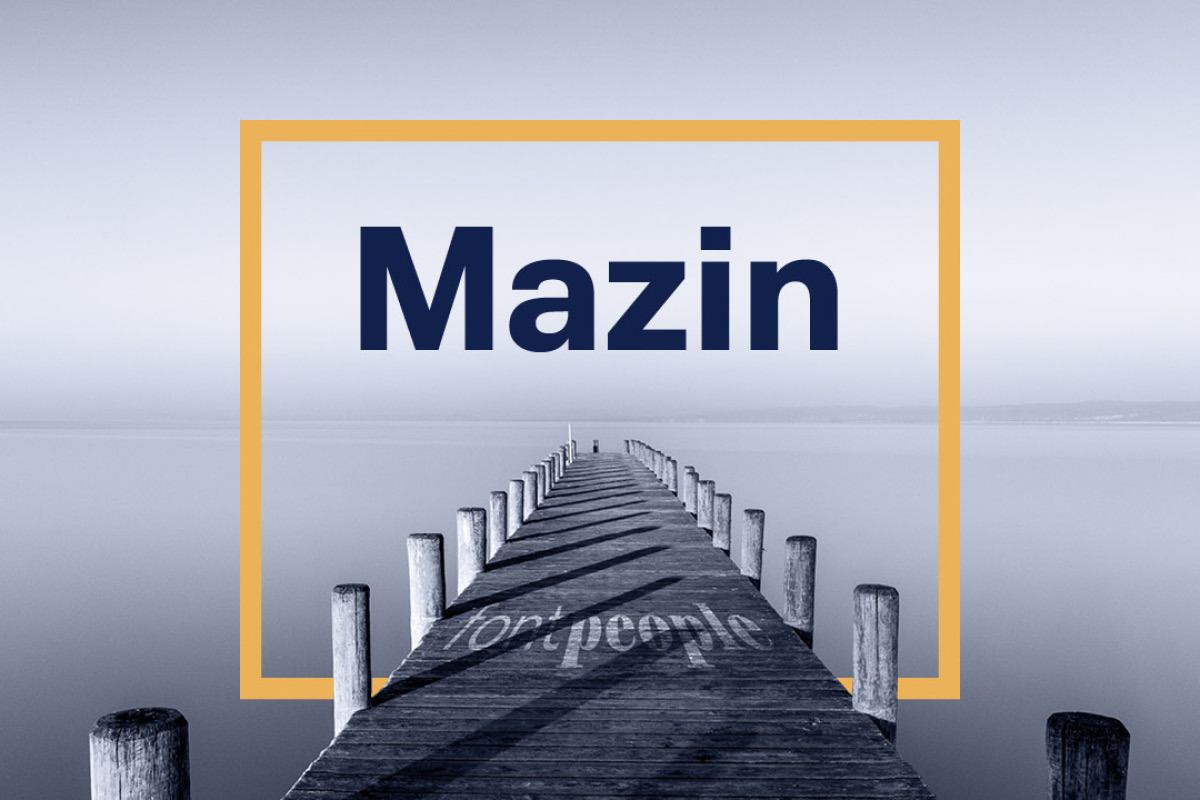
Mazin Font Family Free Download is a clean, modern sans serif typeface designed for versatility and clarity across a wide range of applications. Featuring multiple weights and styles, the Mazin font family is ideal for editorial layouts, branding systems, user interfaces, corporate communications, and web design. Its minimalist aesthetic and well-balanced letterforms ensure excellent readability at both large and small sizes.
Whether you’re building bold headlines or clean body text, Mazin offers a professional, contemporary feel that adapts seamlessly to both print and digital environments.